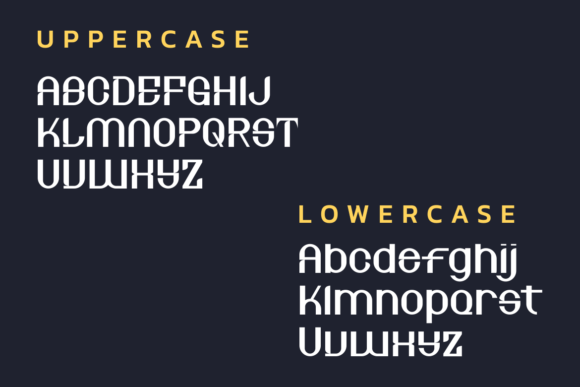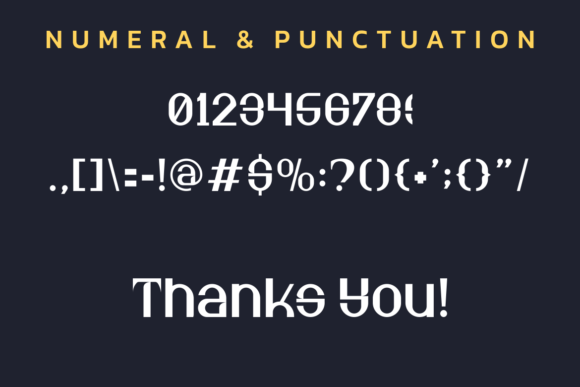
Unlock Your Creativity with the Catalistic Font
Have you ever been stuck on a design project, struggling to find the perfect font to bring your vision to life? You’re not alone. We’ve all been there – staring at a blank canvas, wondering what will finally spark that creative breakthrough. For designers, the right font can be the missing piece that turns a good idea into something truly special.
Enter the Catalistic Font, a modern display font designed to add a touch of elegance and sophistication to any project. Whether you’re creating digital designs, crafting handmade cards, or developing engaging presentations, this font is sure to become your new go-to. Its versatility and unique style make it an invaluable asset for designers of all levels, allowing you to express your creativity and bring your ideas to life.
- Unique Characteristics: Catalystic Font features a unique blend of modern and traditional design elements, including subtle texture and intricate details, making it perfect for creating eye-catching headlines and titles.
Catalistic Font Review
I’ve had the chance to work with the Catalistic Font, and here’s my honest take on it.
- The font’s unique blend of futuristic and minimalist elements is striking. It’s perfect for modern designs that need a touch of sophistication.
- The font is highly legible, even at smaller sizes, making it suitable for a wide range of applications.
- The font’s versatility shines through its numerous weight options and styles, allowing designers to experiment with different looks and feels.
- The font’s overall design can come across as overly busy or cluttered if not used carefully. It’s essential to strike a balance between style and readability.
- The font’s character set is limited, which might be a concern for designers who need to support multiple languages or special characters.
The Catalistic Font is a solid choice for designers looking to add a modern twist to their projects. While it has its limitations, the font’s unique style and versatility make it a worthwhile addition to any design toolkit. With careful consideration and application, the Catalistic Font can elevate your designs and leave a lasting impression.
Getting the Most Out of Catalistic Font
For optimal results, use Catalistic Font in combination with bold or italic styles to add emphasis to your text. Experiment with different font sizes to create visual hierarchy and balance in your design.
Catalistic Font is ideal for use in headings, titles, and slogans where a unique and attention-grabbing font is required. It can also be used in creative projects, such as posters, flyers, and brochures, where a bold and eye-catching font is needed.